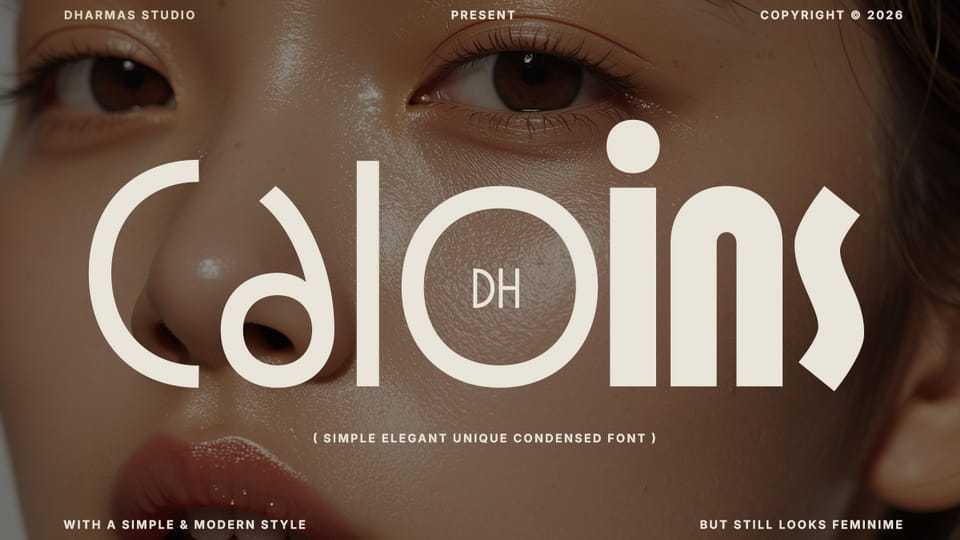
Download Dh Caloins font, an elegant modern typeface family designed to bring a refined, graceful, and sophisticated touch to your typography with its smooth curves and distinctive letterforms.